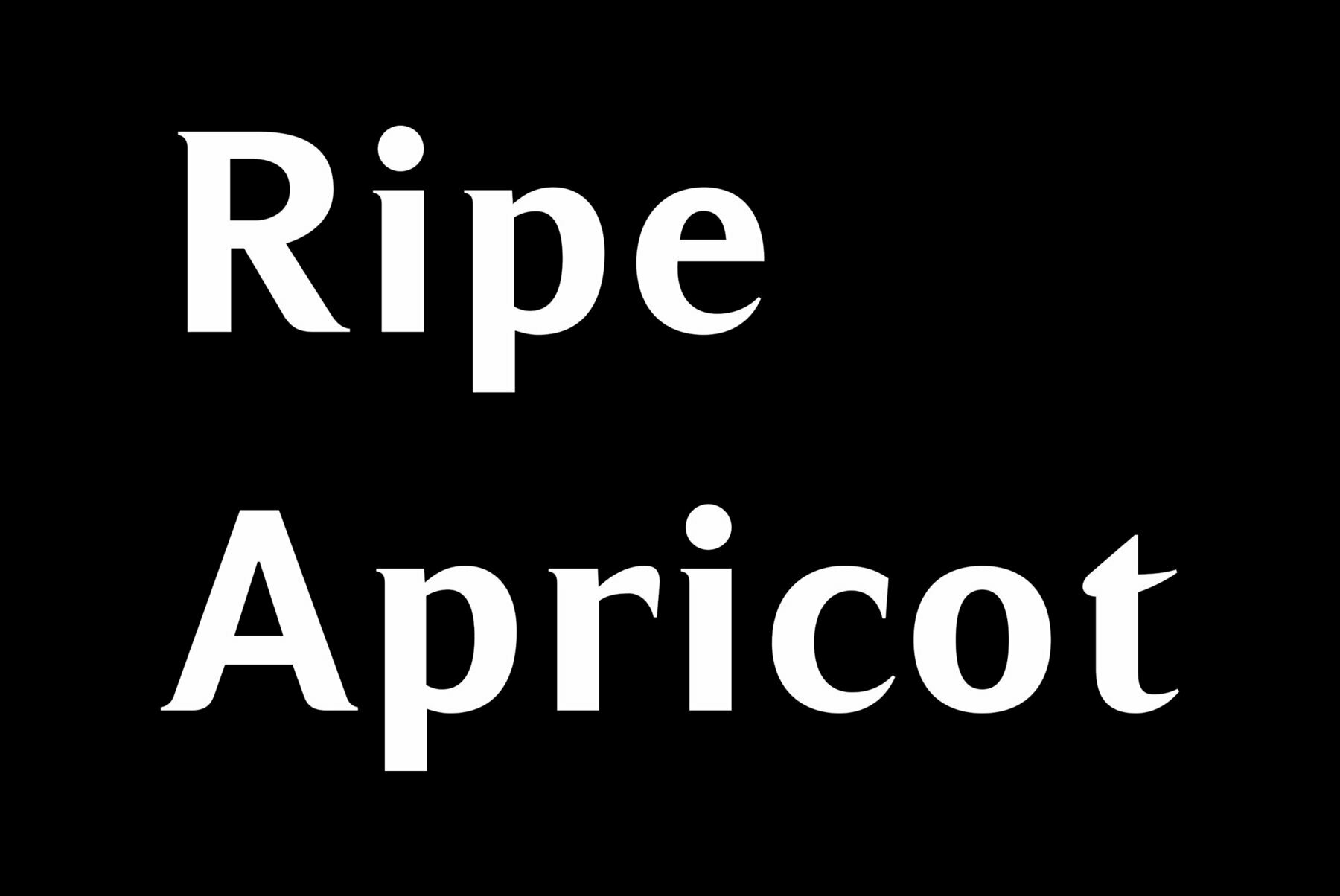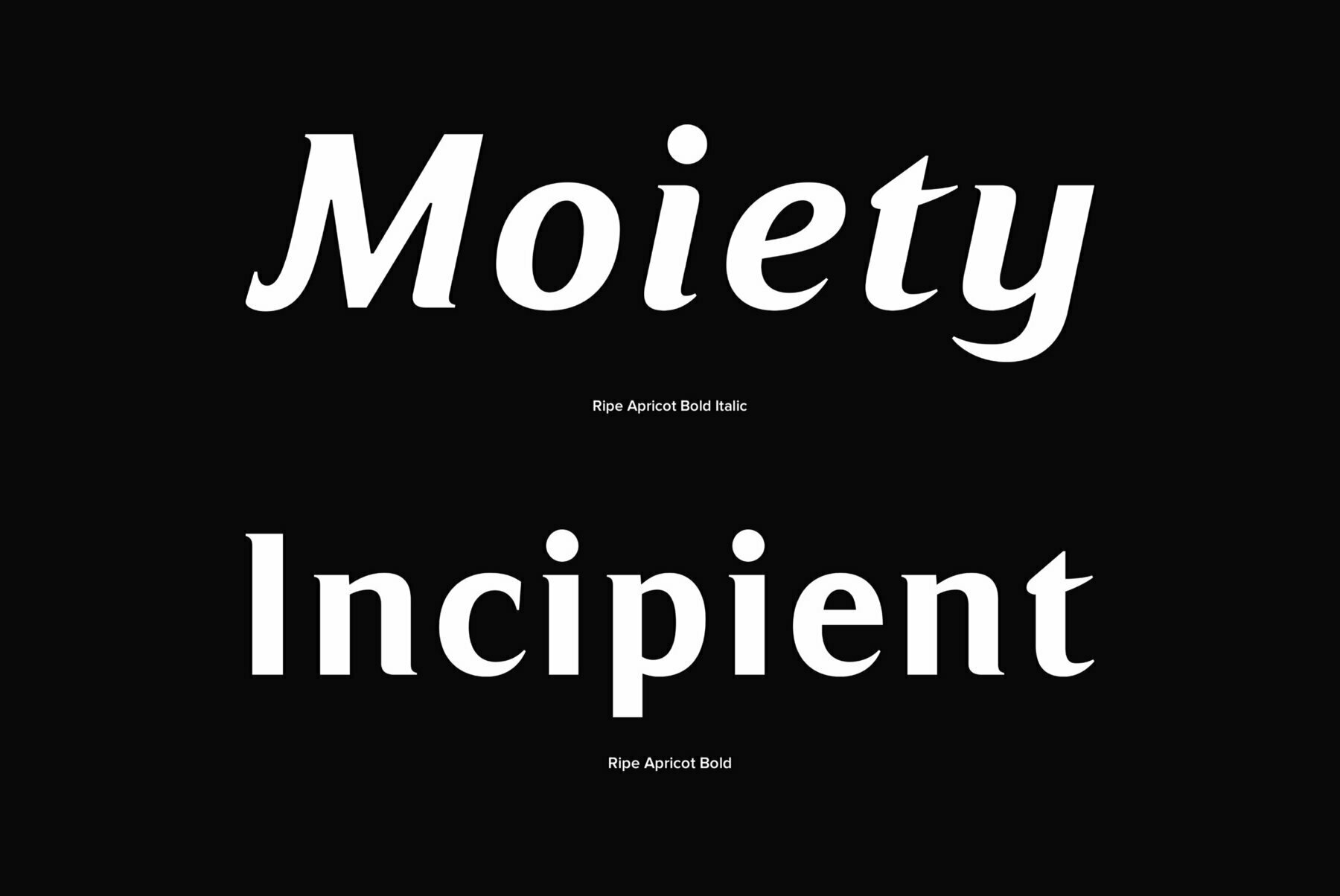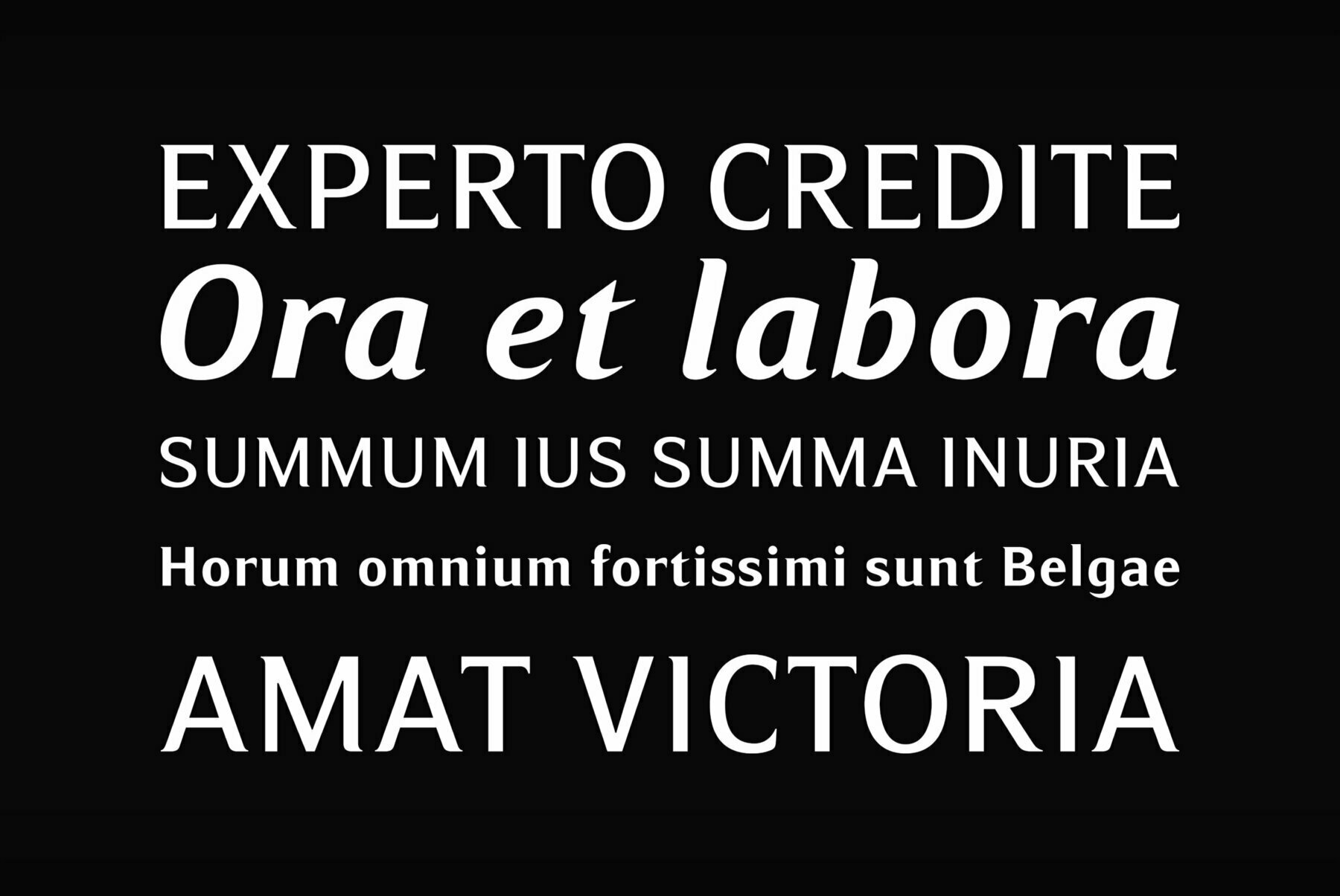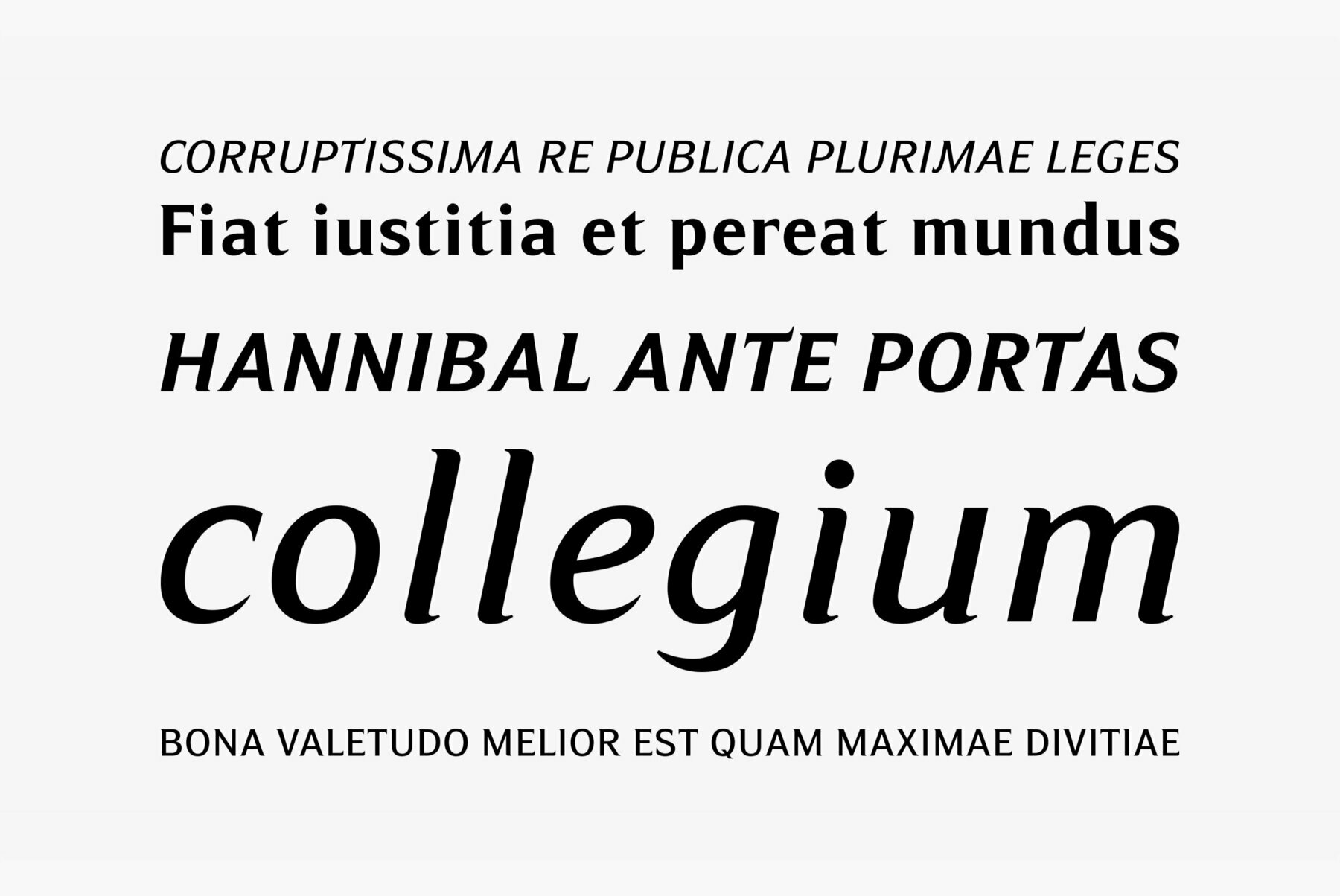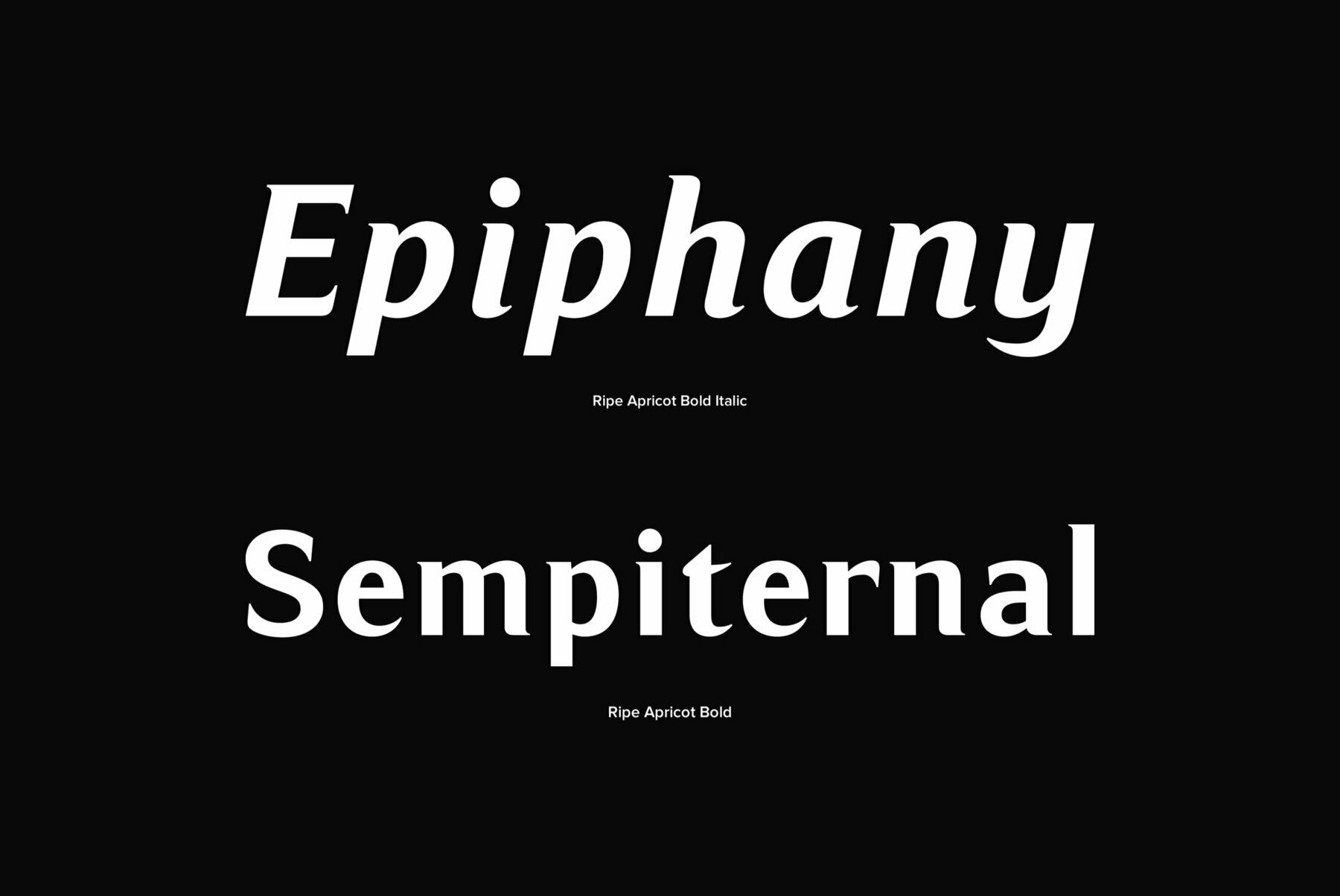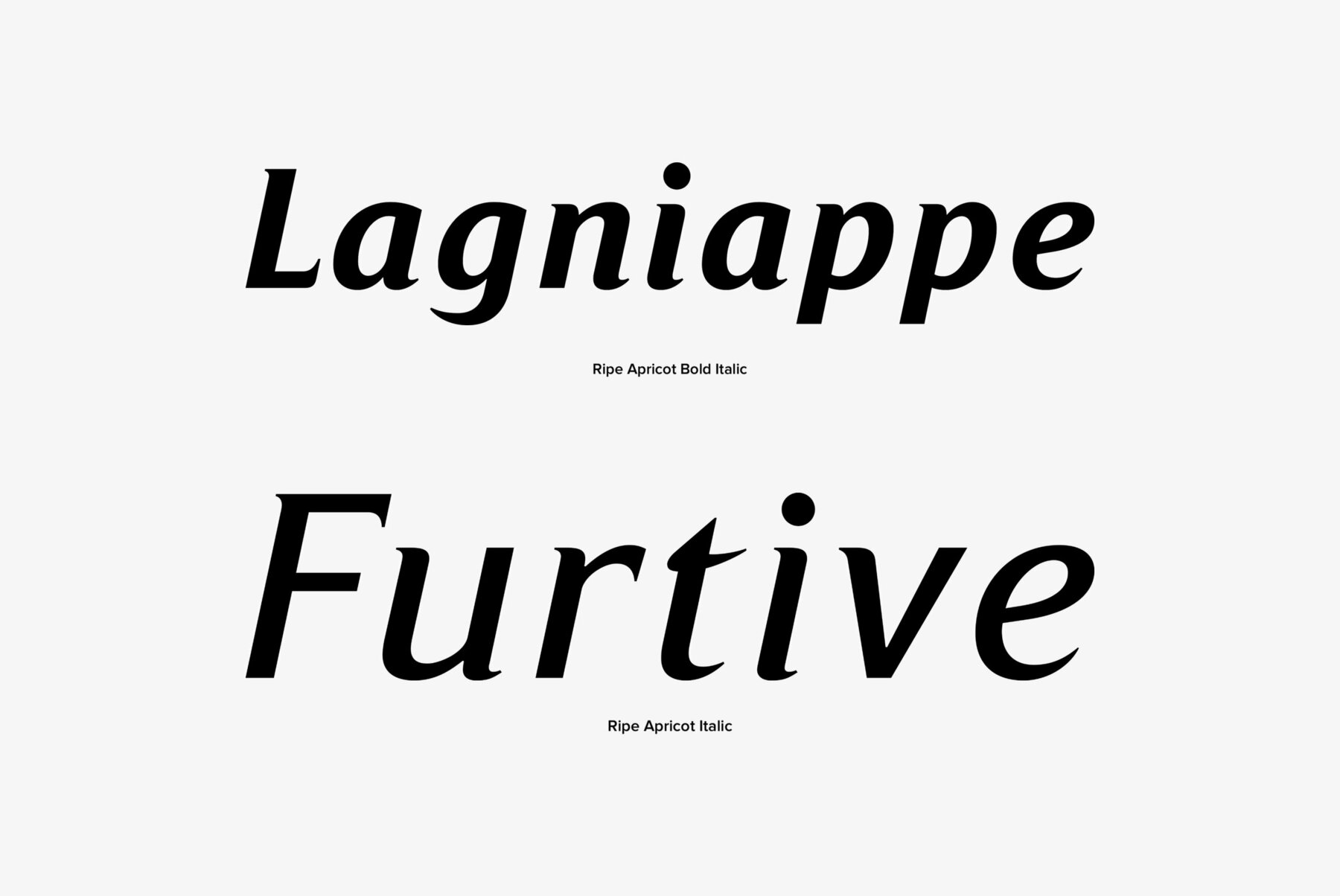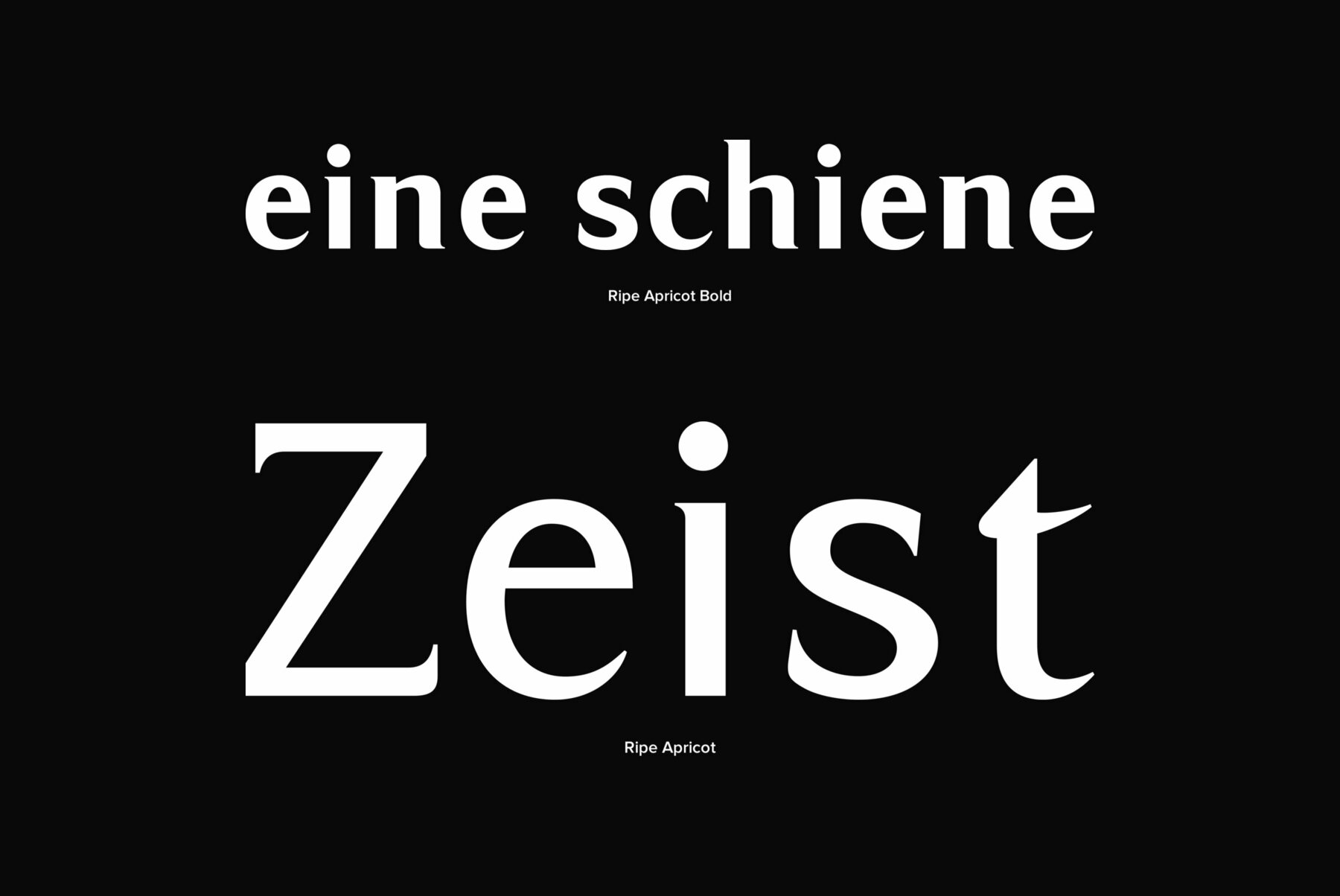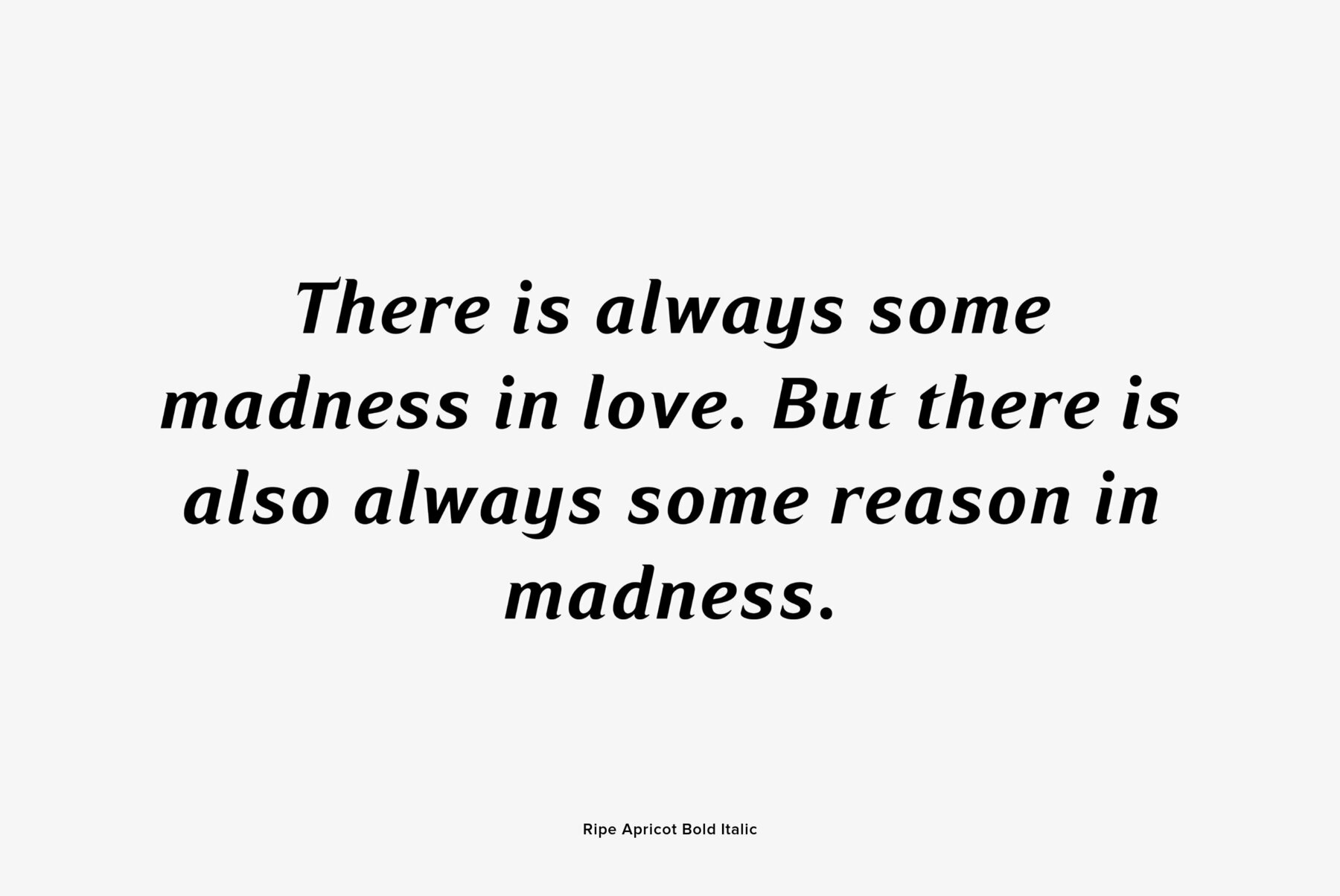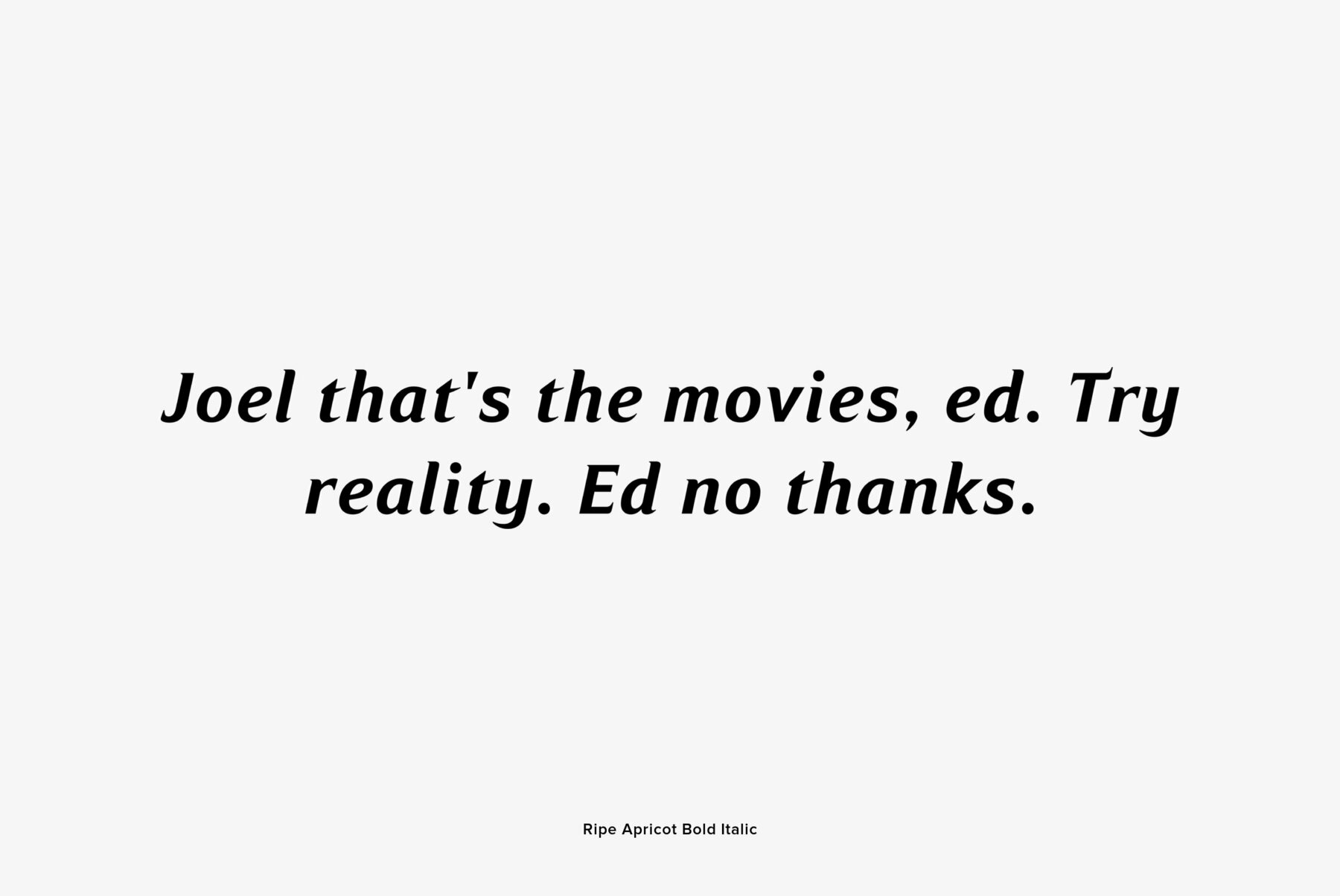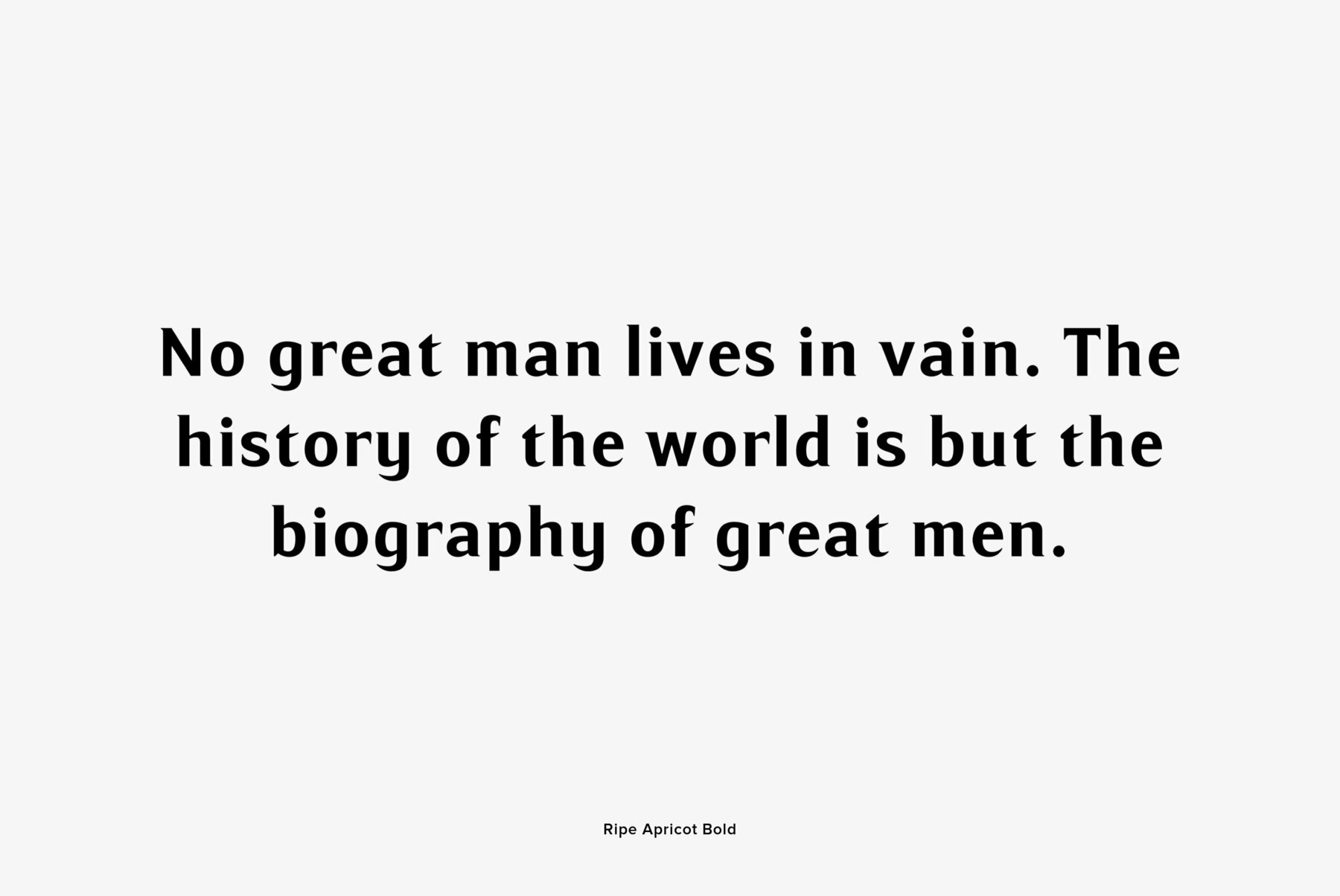
Ripe Apricot
Ripe Apricot is display typeface with flared semi-serifs. The design was created by renowned Armenian type designer Manvel Shmavonyan who gave to the typeface such a name not because of some associations with letterforms but just because the end of the long work was happened at the time of apricot maturity in Armenia. The font family consists of 4 standard styles. It can be recommended for use in advertizing and display matters as well as in magazine and Web design. Released by ParaType in 2010.